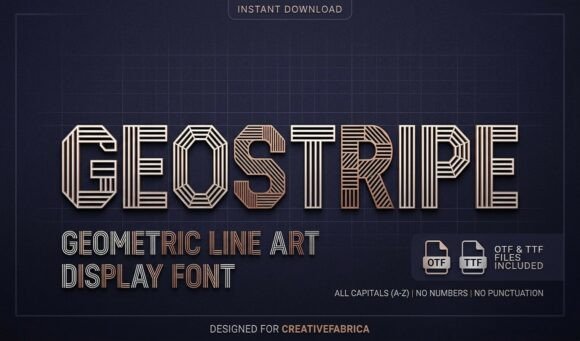
Discover the Bold, Geometric Charm of GeoStripe Font
Have you ever been working on a design project, and suddenly, you’re stuck on finding the perfect font? I recall a recent experience where I was tasked with creating a modern logo for a tech startup. The client wanted something bold, futuristic, and attention-grabbing. After hours of scouring through font libraries, I stumbled upon GeoStripe Display, a geometric font that instantly caught my eye. Its unique linear construction and 3D “folded ribbon” effect were exactly what I needed to bring the design to life.
First Impressions: A Bold and Striking Font
GeoStripe Display is a bold, striking geometric font defined by its unique linear construction. Every letter is meticulously crafted using parallel lines that change direction at sharp angles, creating a fascinating 3D “folded ribbon” or architectural wireframe effect. This font is designed for maximum visual impact, making it perfect for projects that need to stand out, such as modern logos, striking monograms, retro-futuristic poster designs, streetwear apparel, sports branding, and eye-catching headlines.
Honest Review: The Good and the Quirks
- ✨ Unique and eye-catching design: GeoStripe’s geometric construction sets it apart from other fonts.
- ✅ High versatility: Suitable for various design projects, from logos to posters and apparel.
- 💡 Instant visual impact: The font’s bold design grabs attention and makes a statement.
- 🎨 Great for creative experimentation: GeoStripe’s unique style encourages designers to push the boundaries of their creativity.
⚠️ While GeoStripe is an excellent font, it’s essential to note that its bold design may not be suitable for body text or long-form content. Additionally, some users may find the font’s geometric style too dominant for certain design projects.
🤔 One quirk I’ve noticed is that the font’s 3D effect can be overwhelming when used in combination with other bold design elements. However, when used thoughtfully, this quirk can also be a strength, adding depth and visual interest to a design.
GeoStripe’s design is inspired by the futuristic and architectural styles of the 21st century. Imagine a world where buildings and structures are designed with clean lines, sharp angles, and a sense of dynamism. This font brings that vision to life, making it perfect for designers who want to create bold, attention-grabbing designs that push the boundaries of creativity.
Q: What type of projects is GeoStripe best suited for?
A: GeoStripe is perfect for projects that require a bold, attention-grabbing font, such as modern logos, striking monograms, retro-futuristic poster designs, streetwear apparel, sports branding, and eye-catching headlines.
Q: Can I use GeoStripe for body text or long-form content?
A: While GeoStripe is an excellent font, its bold design may not be suitable for body text or long-form content. It’s best used for headlines, titles, or short-form text.